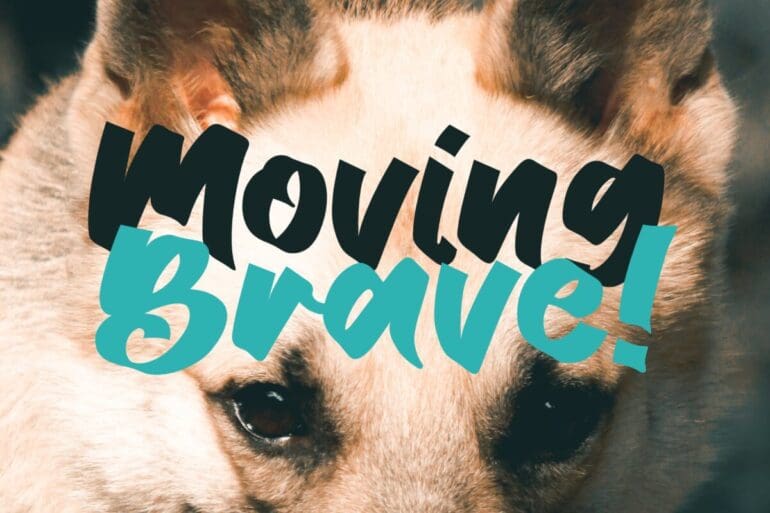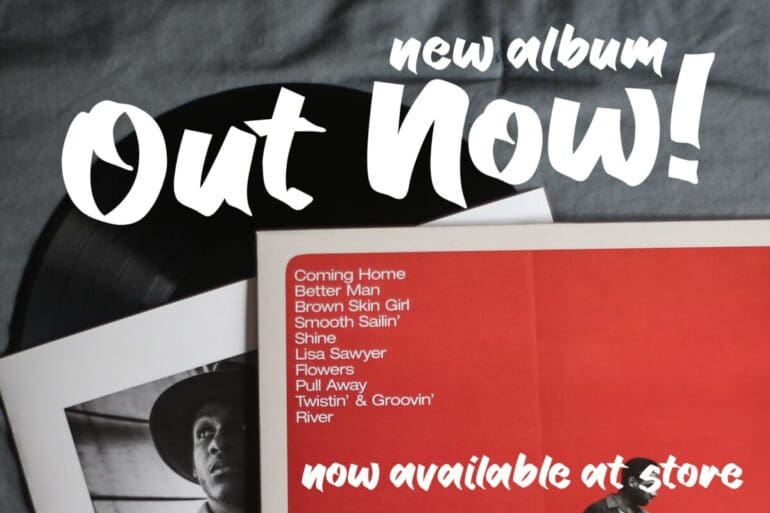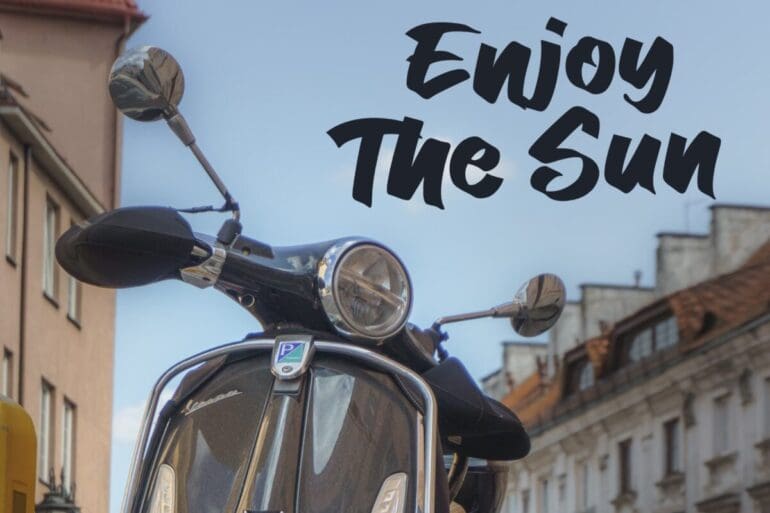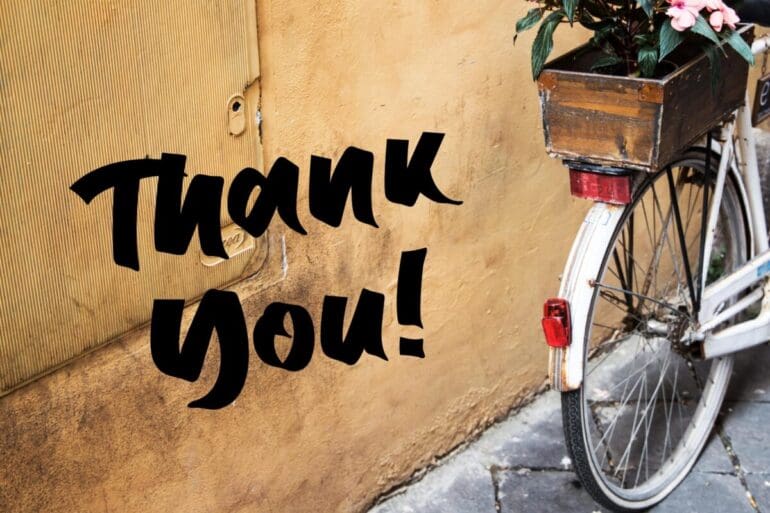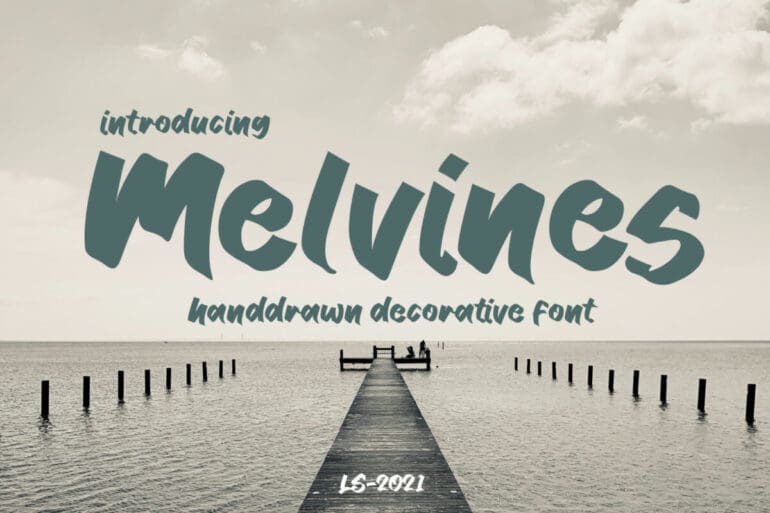
Melvines Font
Melvines Font. This pair was inspired by the Vintage poster design that I saw on some coffee shop, It was crafted by hand especially to add a natural handmade feeling in its brand identity then I make it clean with pentool.